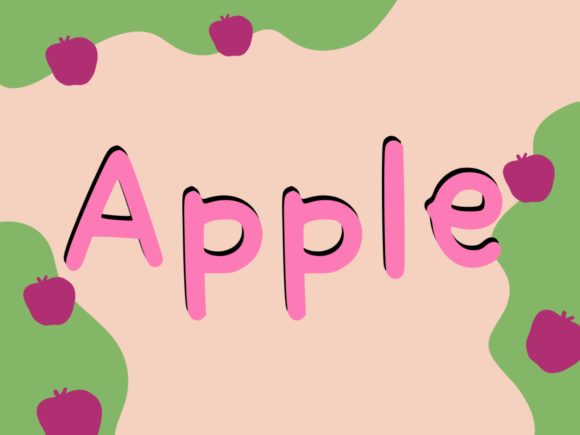
Unleashing Your Creativity with Apple Font
Have you ever been browsing through a craft store or scrolling through Pinterest, and suddenly, you’re hit with a wave of inspiration? You envision the perfect handmade card, the cutest scrapbook page, or the most adorable invitation. For designers and crafty enthusiasts, those moments are pure magic. And, for many of us, the right font can make all the difference.
Enter Apple Font, a delightful handwriting font that has captured the hearts of many. With its beautifully balanced characters, Apple Font is perfect for a wide range of crafty ideas. Whether you’re creating custom party invitations, designing a journal, or crafting a set of personalized stickers, this font is sure to bring your vision to life.
Key Features of Apple Font
- Unique Characteristics: Apple Font is designed with a clean, modern aesthetic and features a sans-serif design with rounded edges, making it highly legible and visually appealing.
Apple Font Review
As a designer, I was excited to dive into the world of Apple Font, the latest addition to Apple’s typography family. Overall, I have mixed feelings about this font.
- Consistency: Apple Font is incredibly consistent in its design, making it a great choice for large-scale projects.
- Ease of use: The font is designed to be easy to read, even at small font sizes.
- Modern feel: Apple Font has a modern and sleek feel that’s perfect for contemporary designs.
- Lack of personality: While Apple Font is consistent, it can also feel a bit bland and lacking in personality.
- Not suitable for all projects: The font’s modern feel may not be suitable for more traditional or classic designs.
- Not as versatile as other fonts: Apple Font may not be as versatile as other fonts, making it less suitable for projects that require a wide range of styles.
Overall, I think Apple Font is a solid choice for designers who want a modern and easy-to-read font. However, it may not be the best choice for projects that require a lot of personality or versatility.
Tips for Getting the Most Out of Apple Font
- Use Apple Font for headings and titles to add a touch of elegance to your designs.
- Pair Apple Font with other clean and minimalist fonts to create a visually appealing combination.
- Experiment with different font sizes and colors to add emphasis to your text.
Apple Font is commonly used in:
- Corporate branding and identity design.
- Print materials such as business cards and brochures.
- Digital design such as websites and social media graphics.